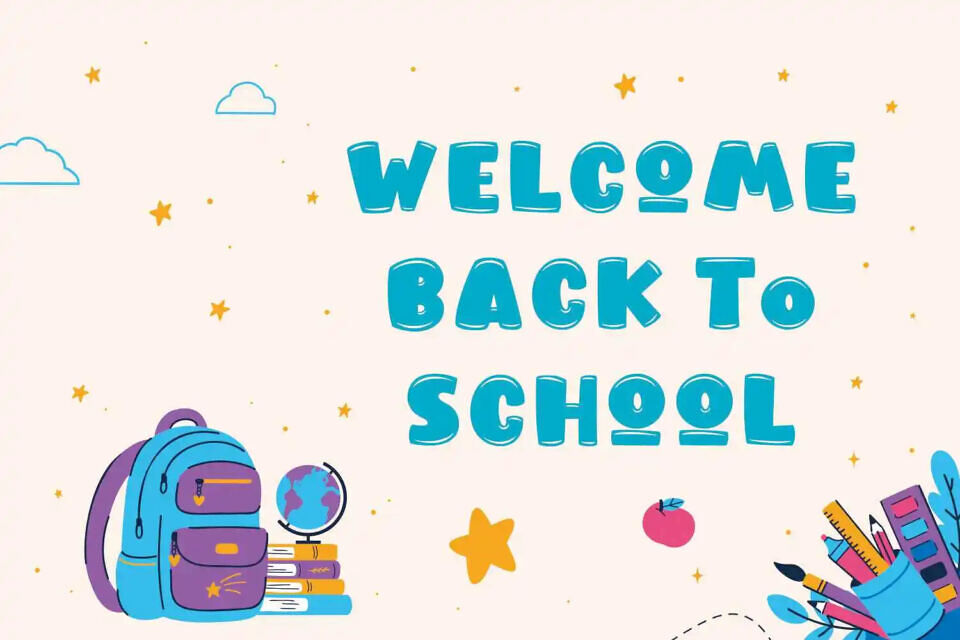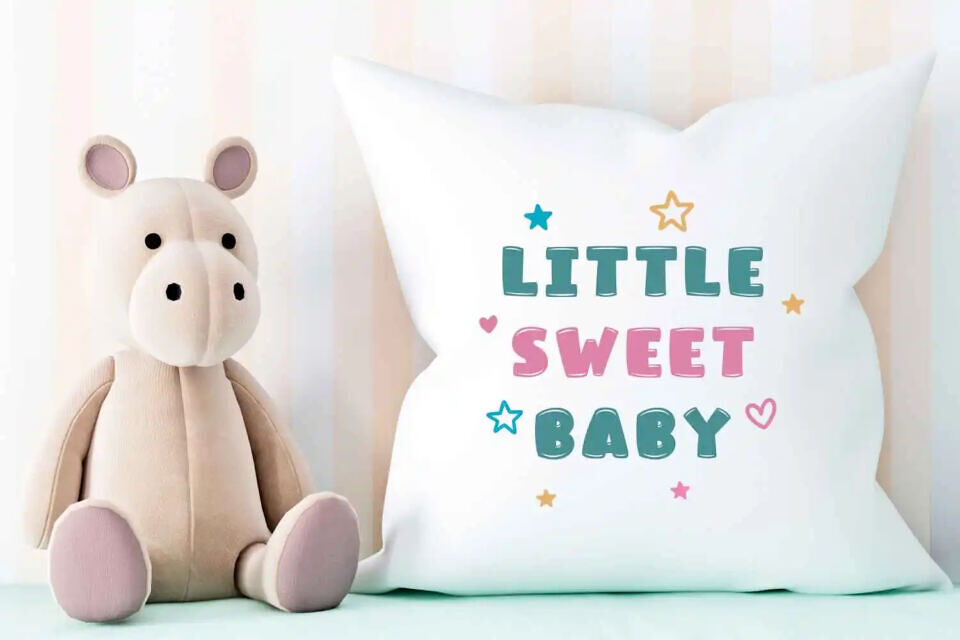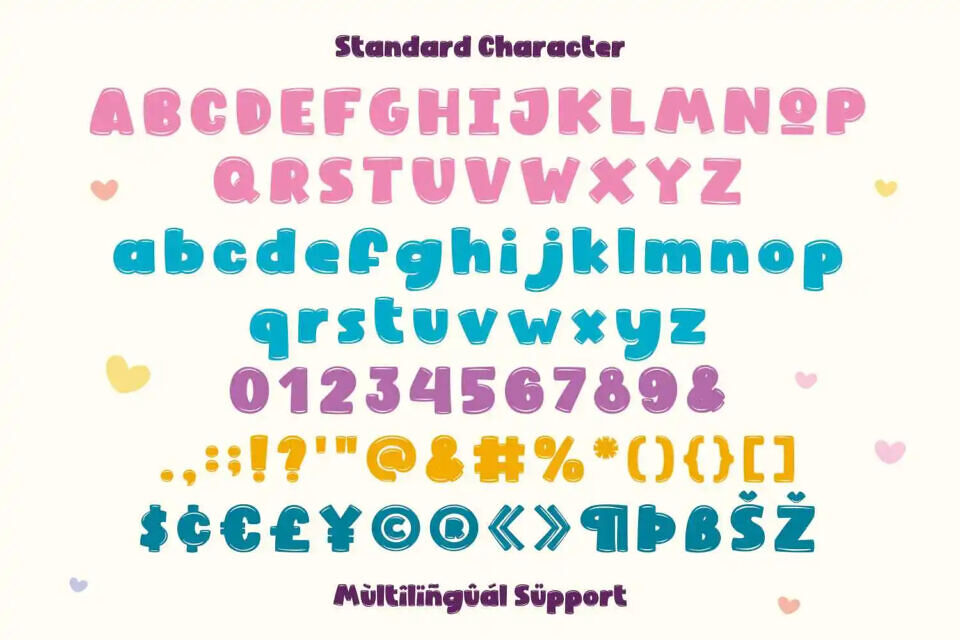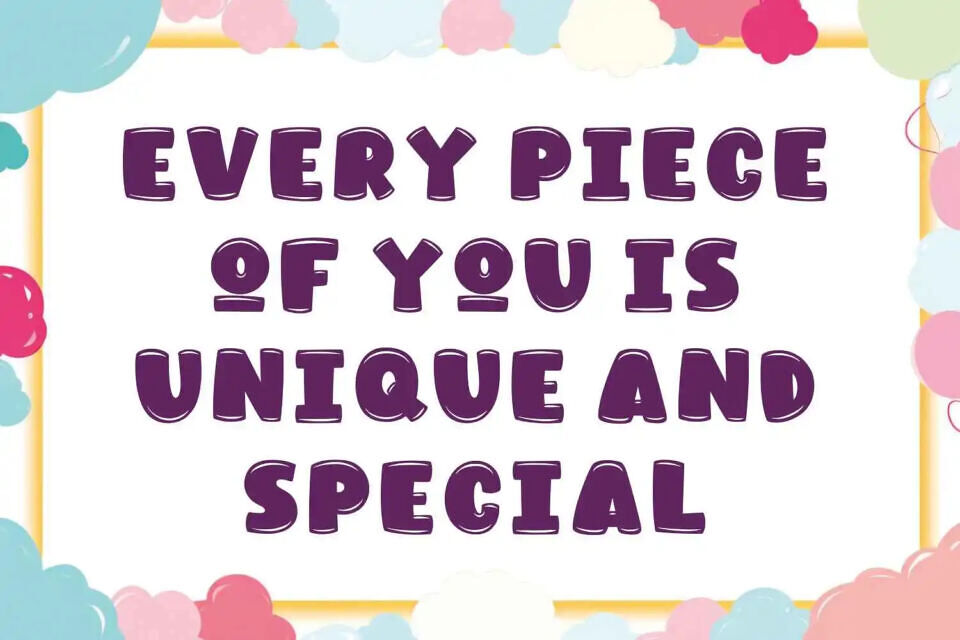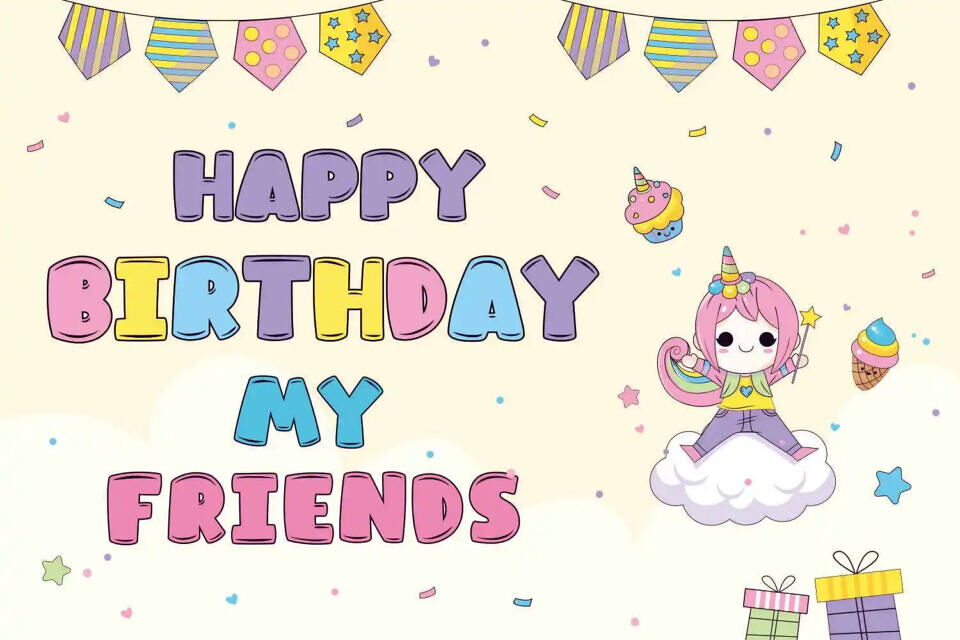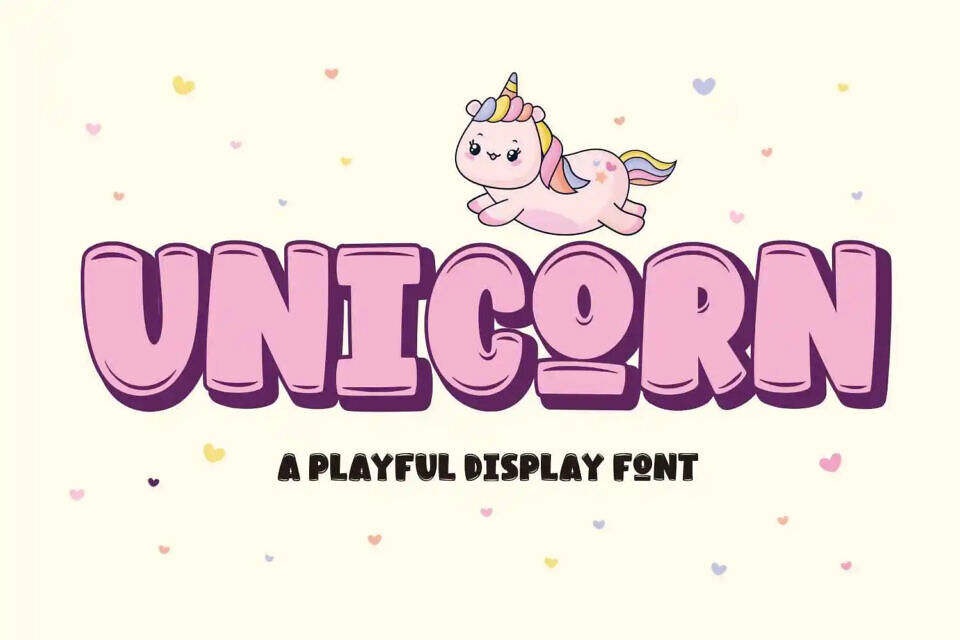
Unicorn Font
Introducing UNICORN, the font that will sprinkle a touch of magic onto every celebration, be it birthdays, back-to-school events, or crafting endeavors!
With its display style, UNICORN brings forth an enchanting blend of cuteness, fun, and quirkiness that is perfect for capturing the youthful spirit of children’s writing and crafting projects alike. Its playful curves and whimsical details add a delightful charm to everything from greeting cards to decorations, making each creation an expression of joy and creativity.